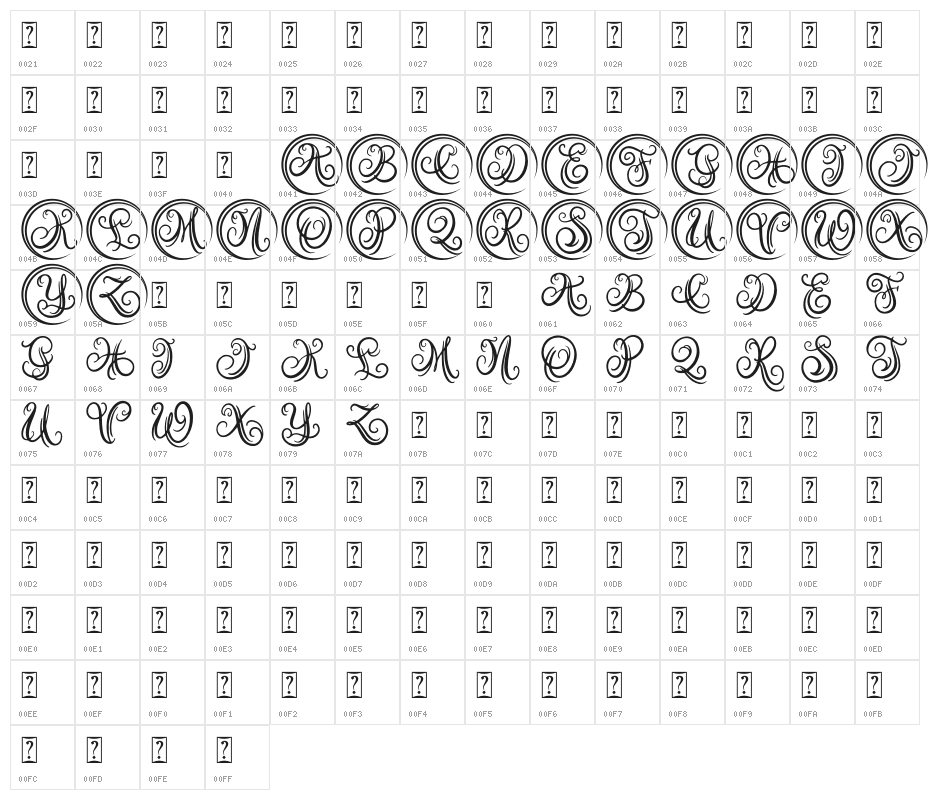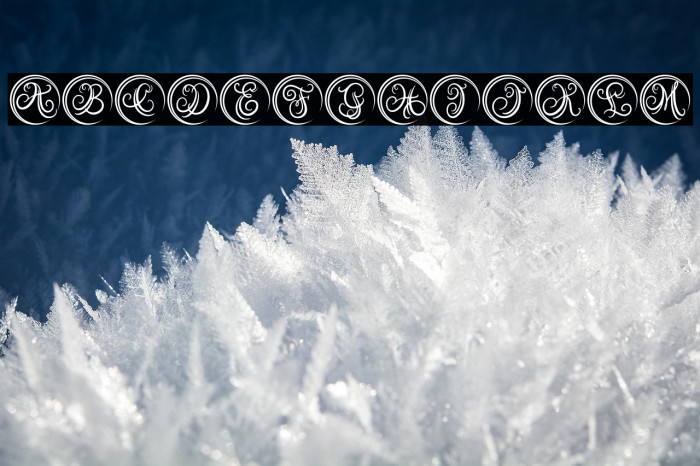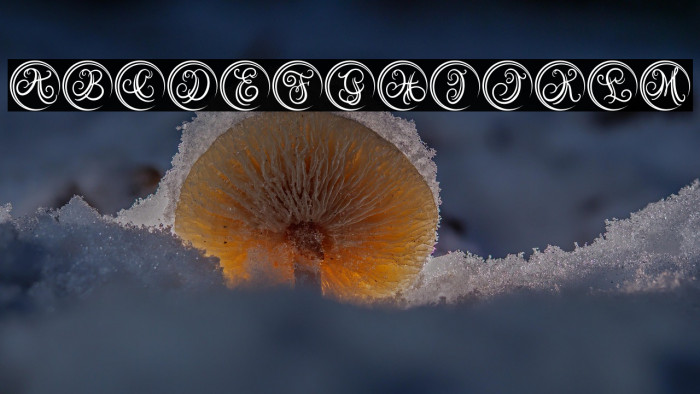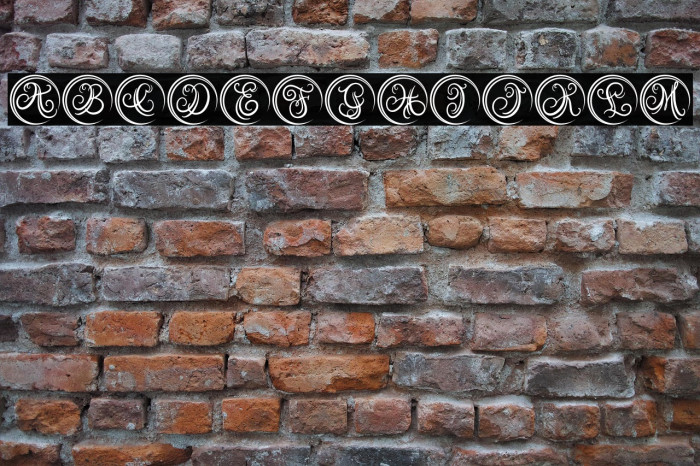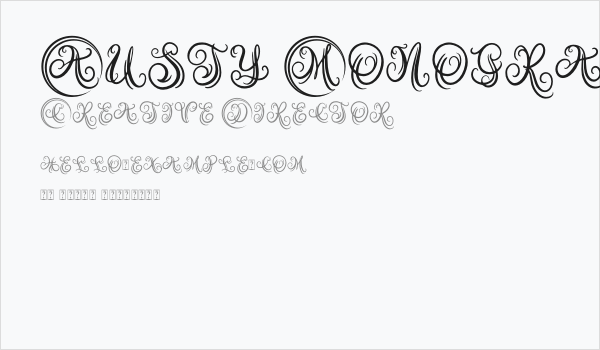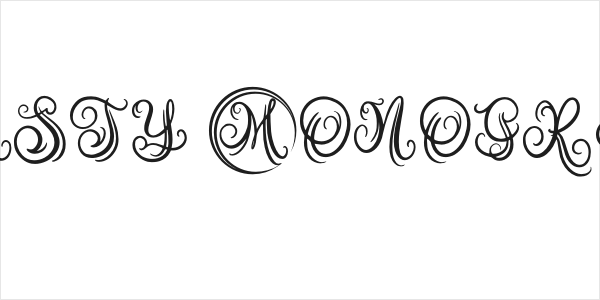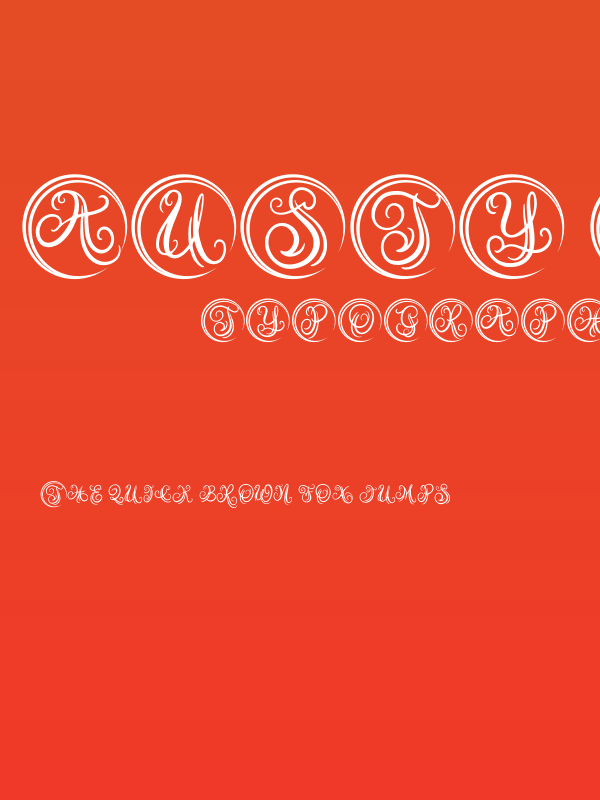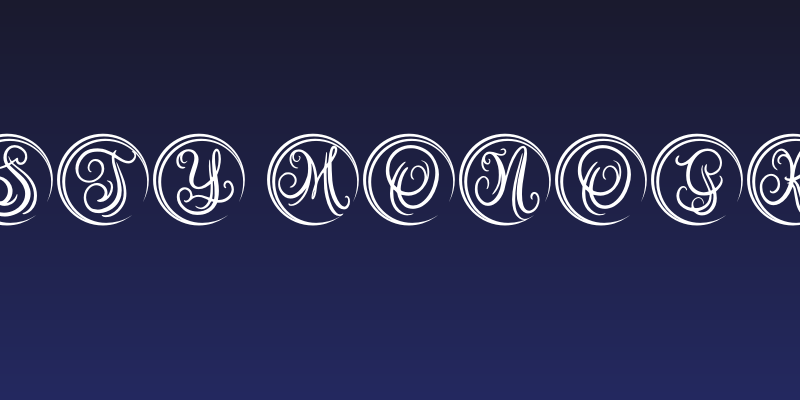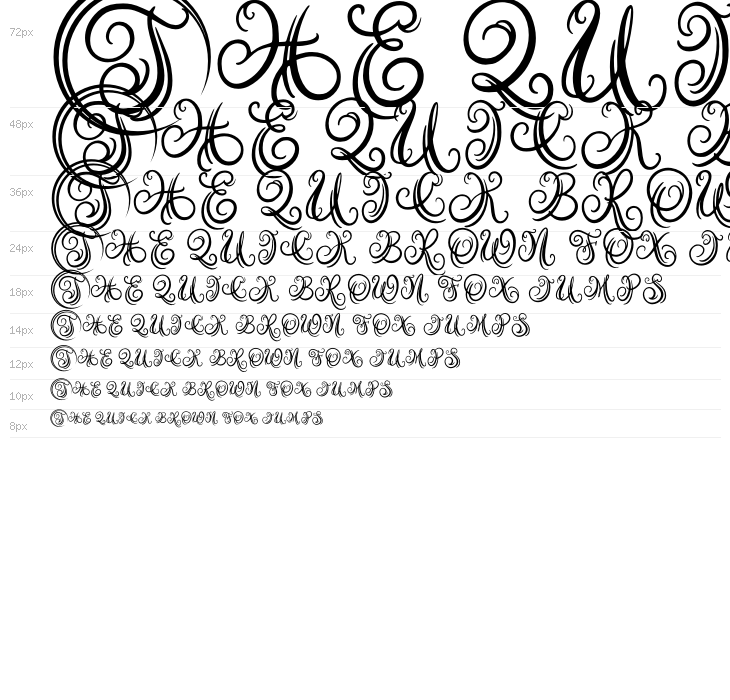
Austy Monogram Font
Austy Monogram Description
This font showcases an elegant and decorative style, characterized by its intricate swirls and flourishes. Each letter is encased in a circular frame, enhancing its monogram-like appearance. The uppercase letters exhibit a sophisticated script with ornate detailing, making it ideal for formal and luxurious designs. The font's unique style is consistent across all characters, providing a cohesive and visually appealing look. Its decorative nature makes it stand out, perfect for projects that require a touch of elegance and refinement.
| Proposed Projects | Ideal for wedding invitations, luxury branding, monogram designs, and high-end product packaging. |